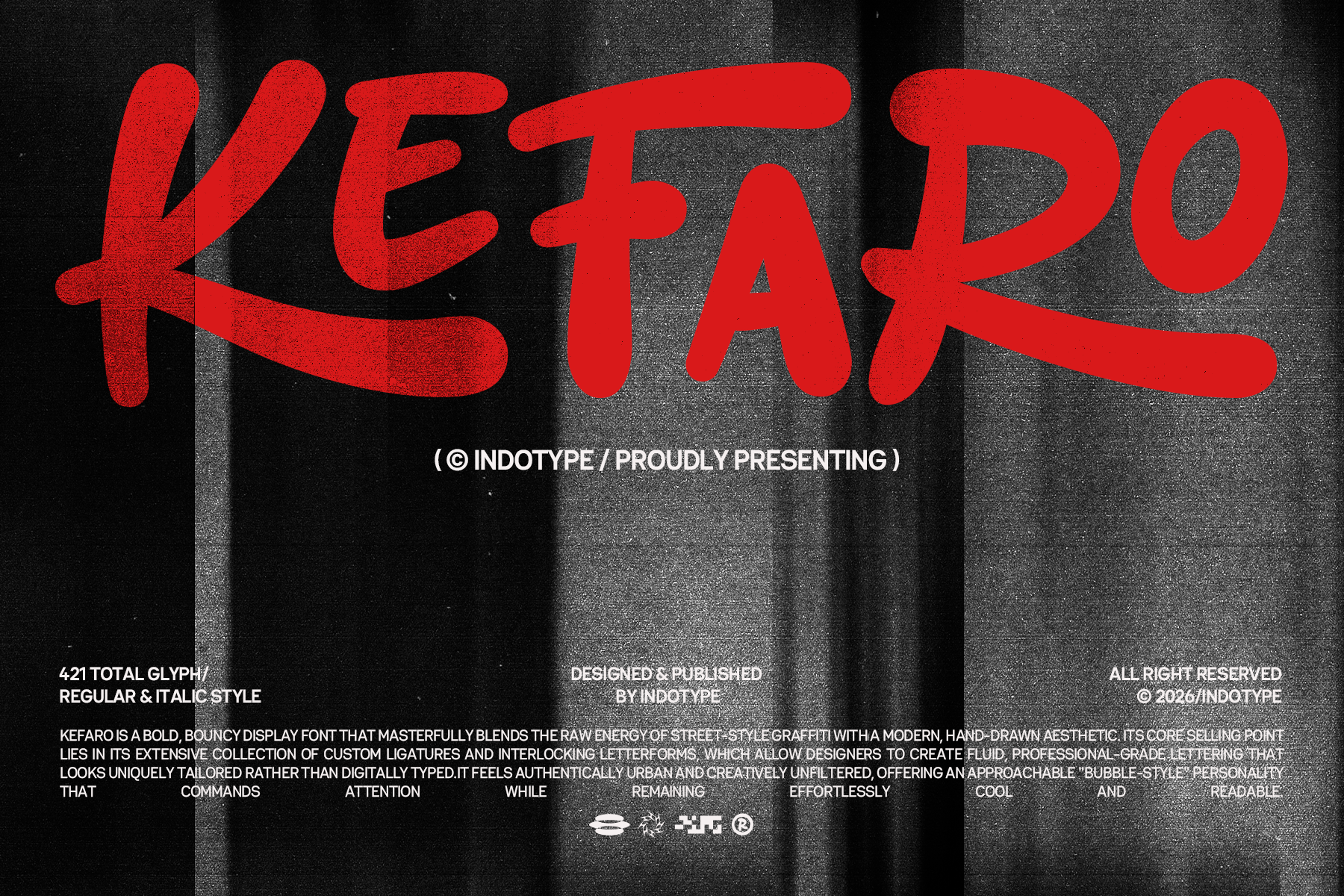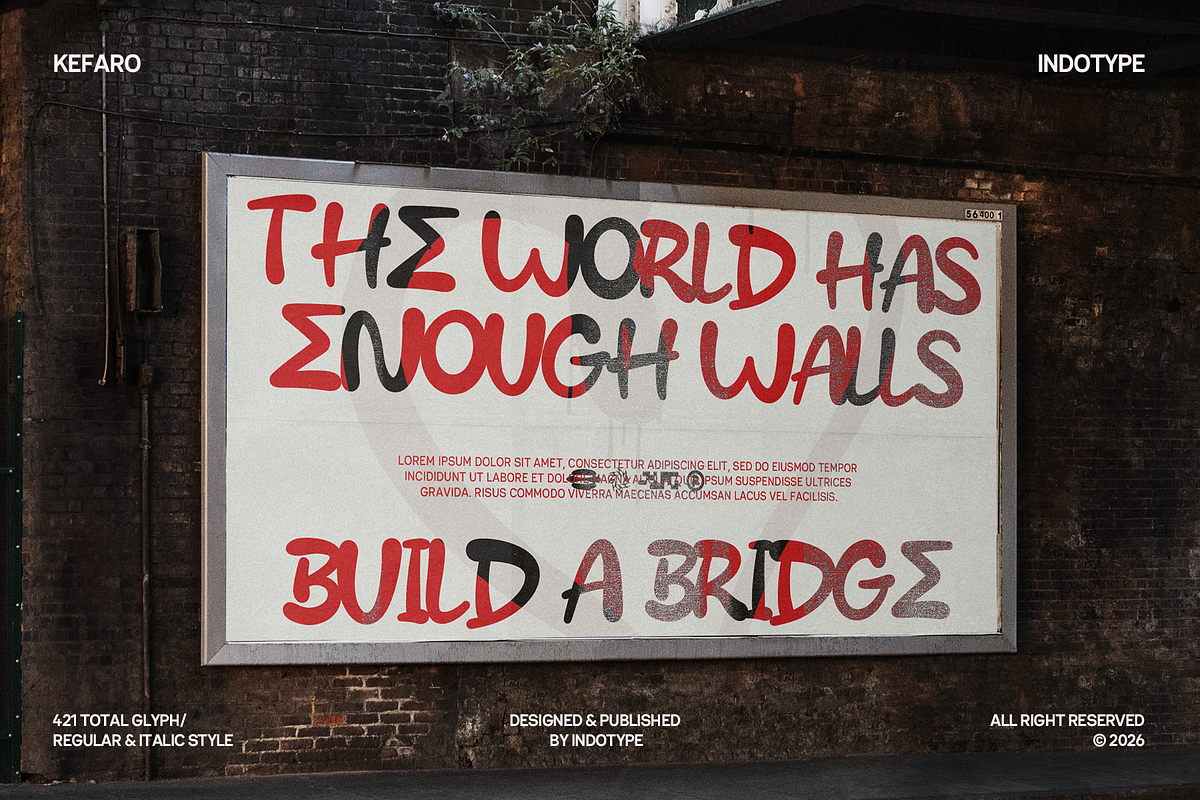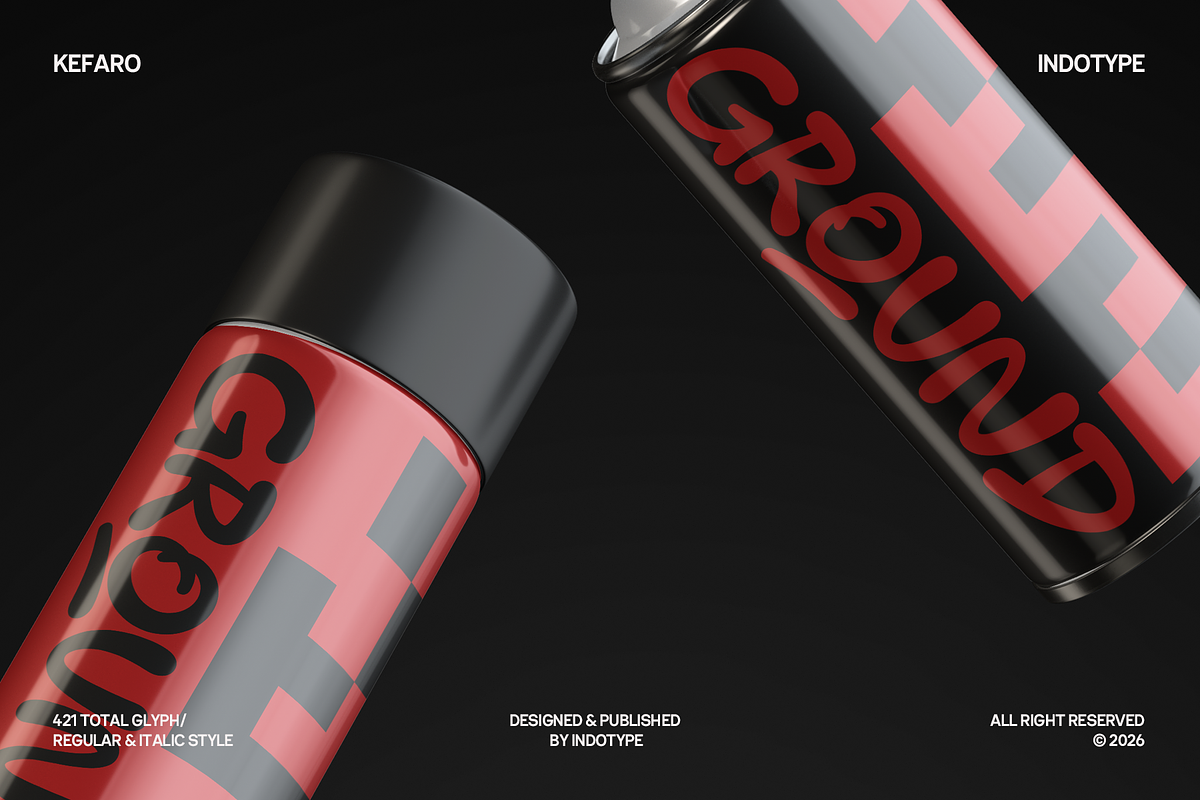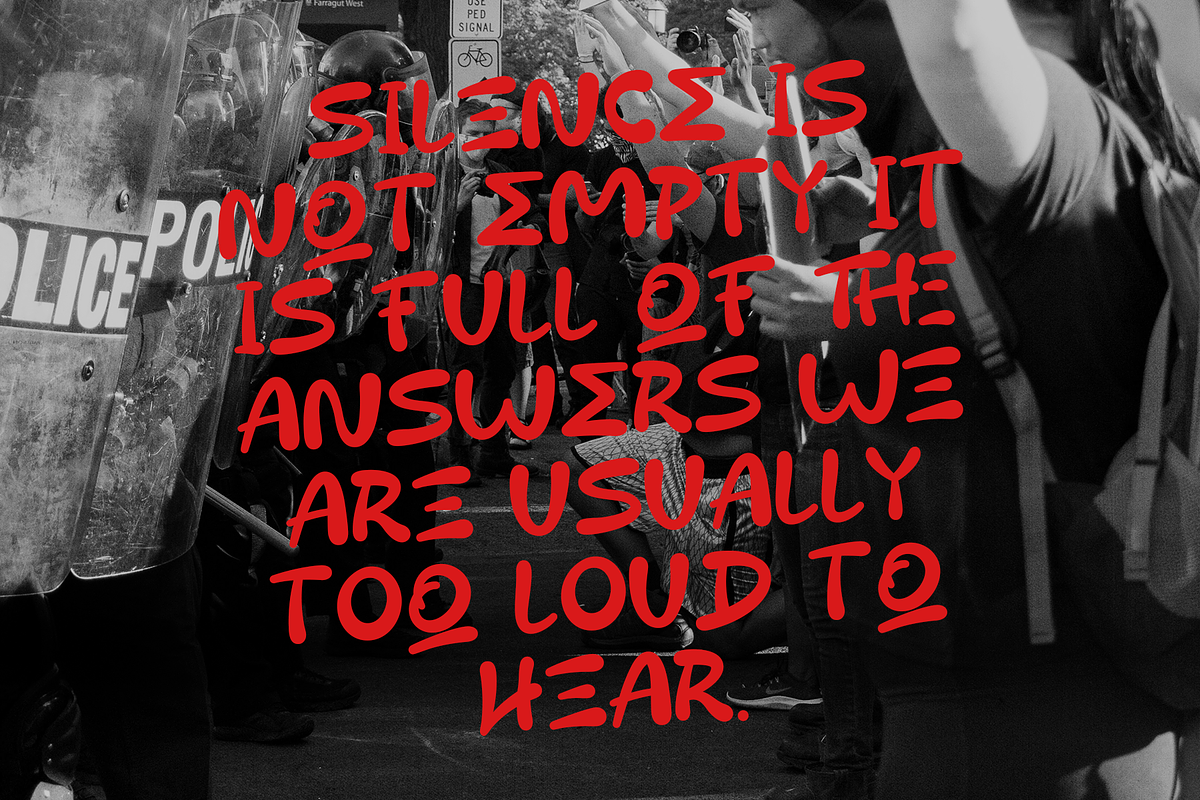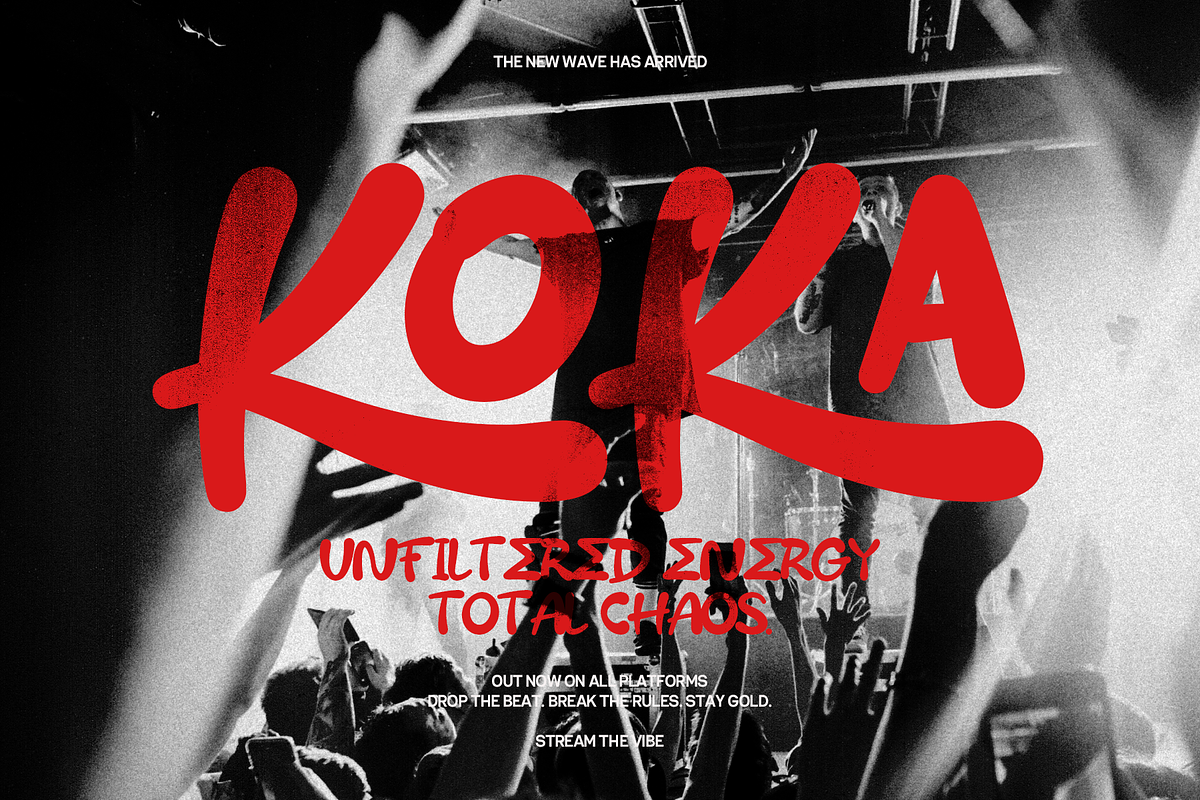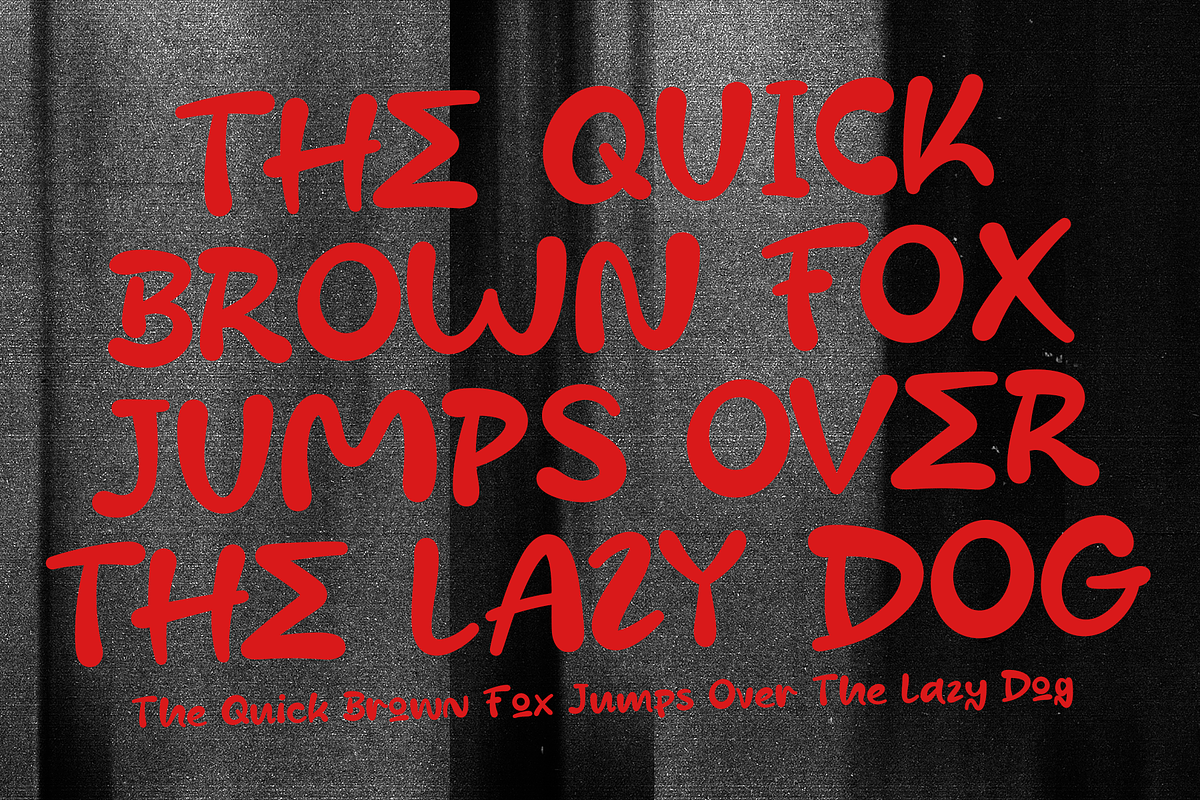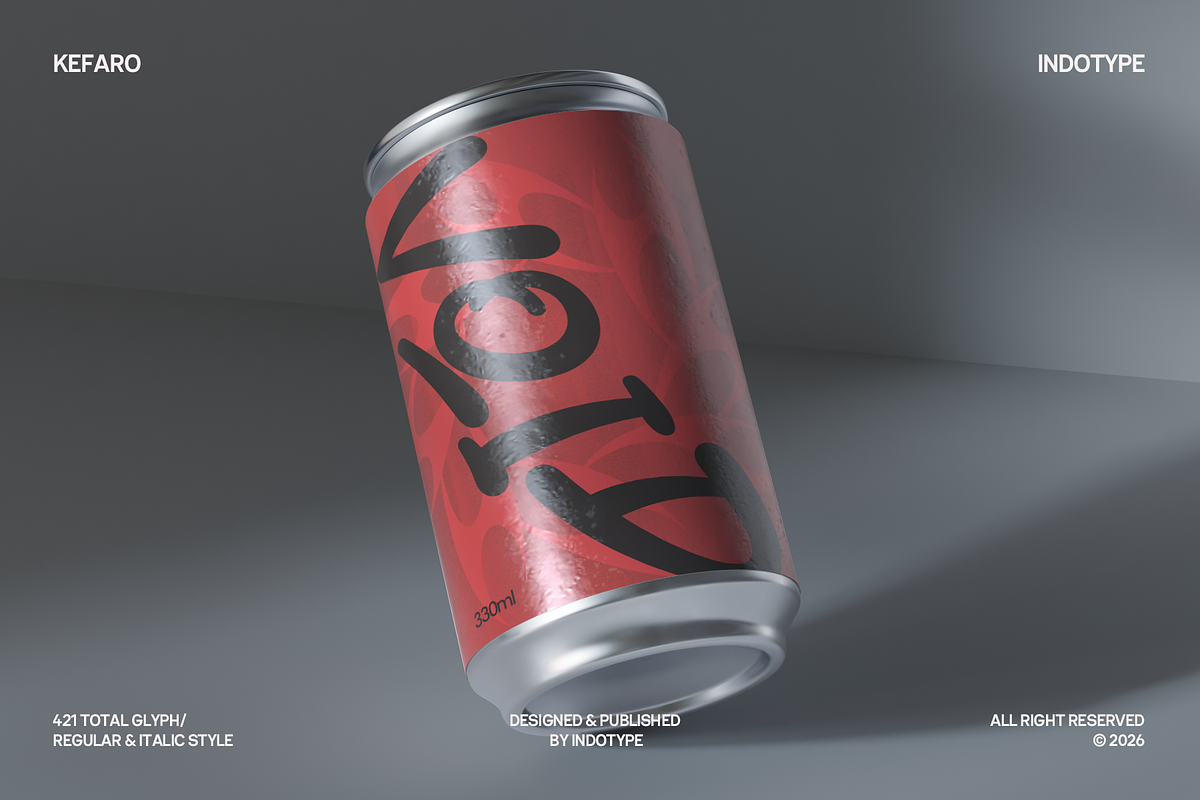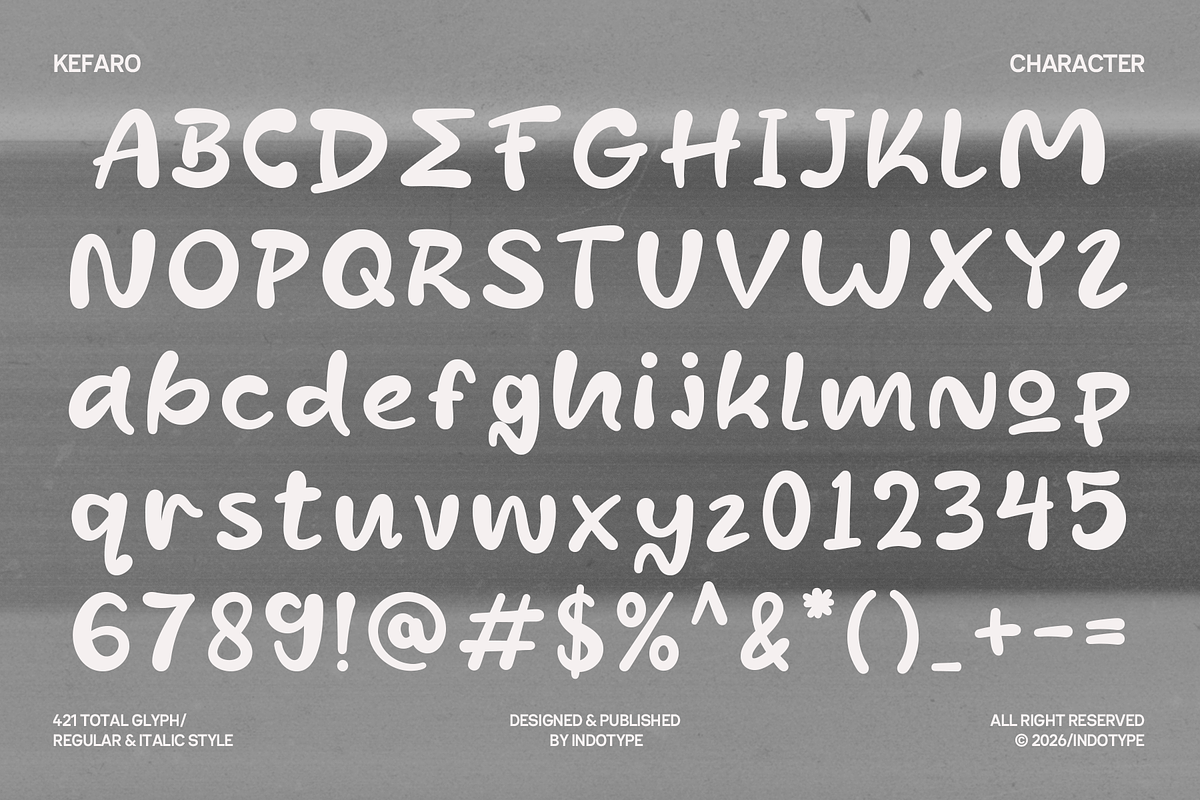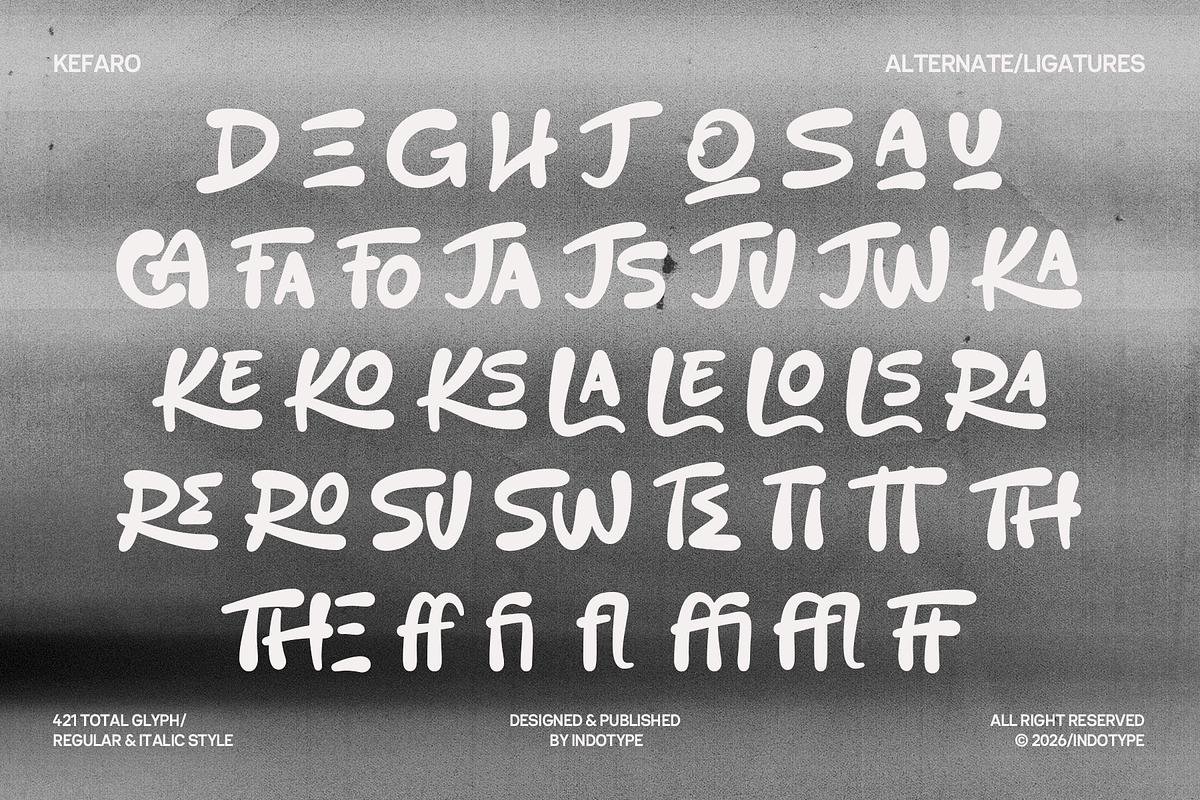
Kefaro - Graffiti Display Font
Kefaro is a bold, bouncy graffiti display font that masterfully blends the raw energy of street-style lettering with a modern, hand-drawn aesthetic. Designed and published by Indotype, Kefaro captures the authentic visual language of urban graffiti culture — the spray-can sweep, the fat marker pressure, the instinctive rhythm of a practiced hand moving fast across a surface — and translates it into a fully professional typeface system with 421 total glyphs, Regular and Italic styles, and an extensive collection of custom ligatures and interlocking letterforms. This is graffiti elevated: still wild, still free, but engineered with the precision and depth of a serious type design system. Kefaro's letterforms are defined by their bold, inflated stroke structure — thick, rounded, spray-can-style strokes that swell at their fullest points and taper into energetic, brushed terminals that carry the unmistakable energy of hand-applied paint. The strokes bear deliberate textural variation — subtle roughness in the edges, organic weight shifts within individual strokes — that keeps every letterform feeling genuinely hand-crafted rather than digitally manufactured. This textural authenticity is central to Kefaro's appeal: it looks like it was made on a wall, not on a screen.